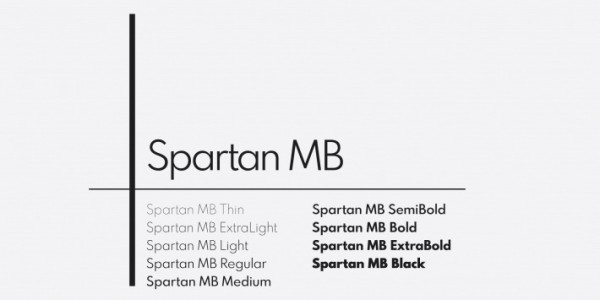
Spartan MB Font is a sans serif type of bold and thin type. Spartan MB it’s perfect for , poster, logo, magazine, cover, banner, tshirt and headers, or even large-scale artwork.
| Designer Name: | Matthew Bailey |
| Classification: | Sans Serif Fonts |